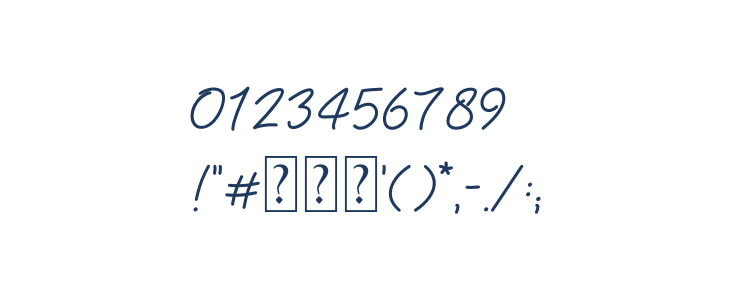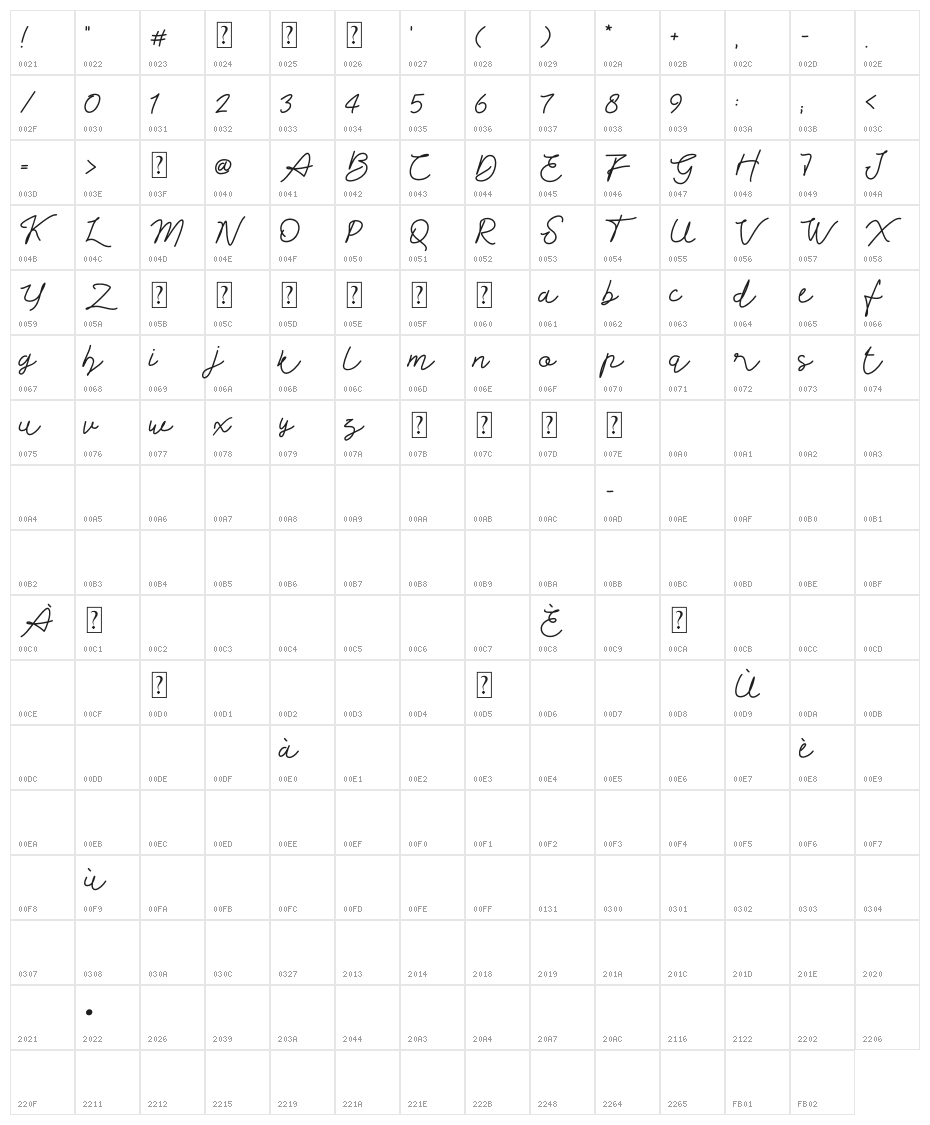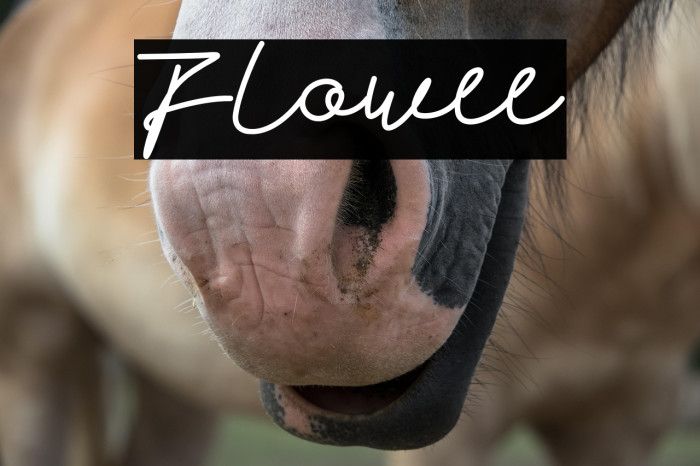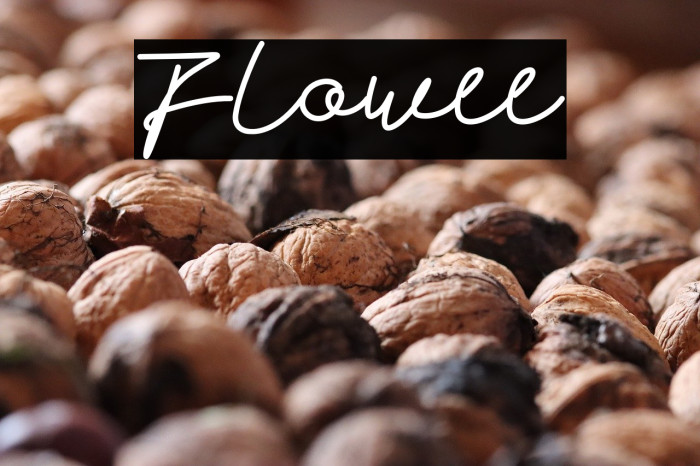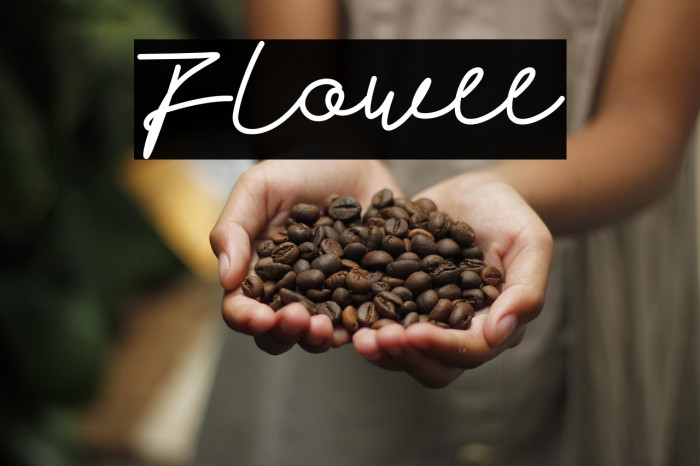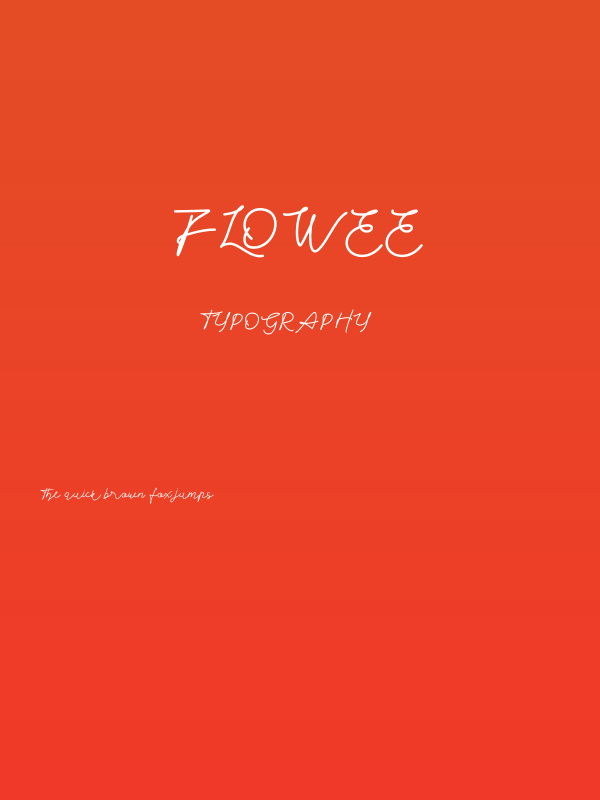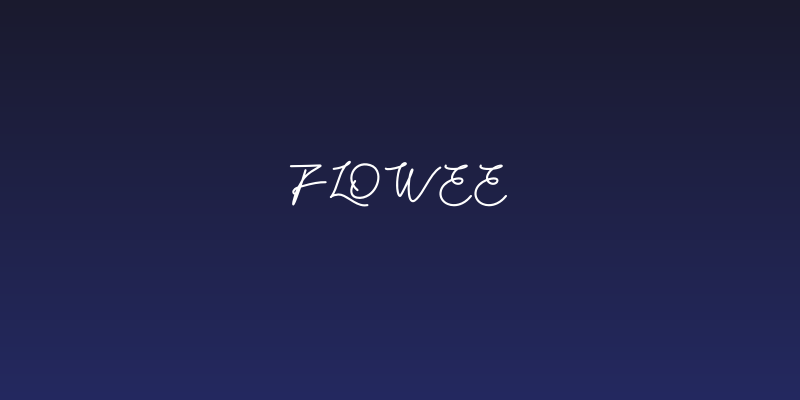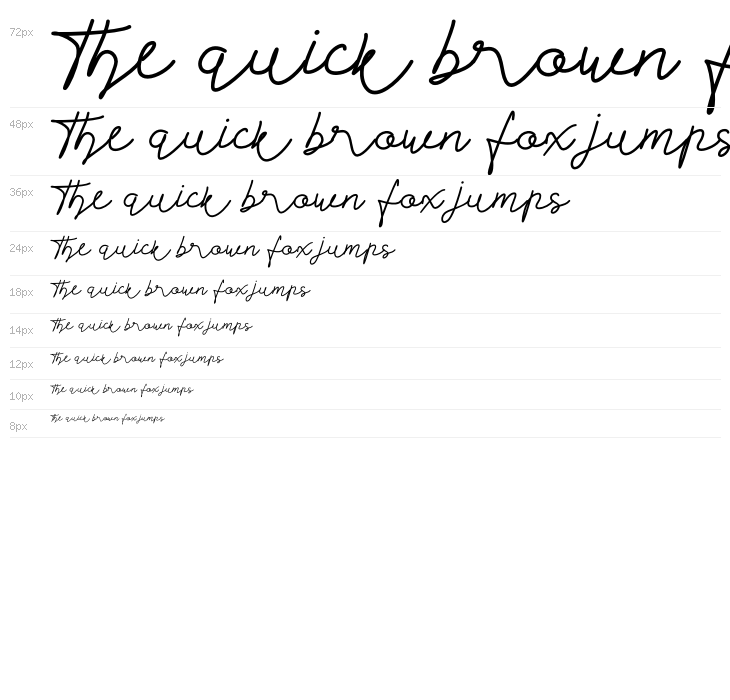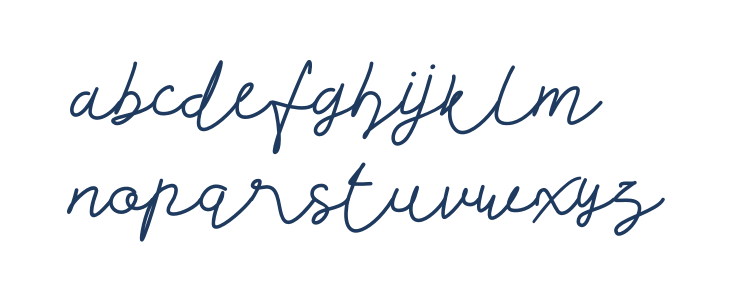
Flowee Font
Flowee Description
This font exudes a casual and flowing handwritten style, characterized by its smooth, cursive strokes that connect seamlessly. The uppercase letters are elegantly elongated, while the lowercase letters maintain a consistent rhythm, enhancing readability. Numbers are clear and distinct, matching the overall fluidity of the alphabet. Special characters are thoughtfully integrated, maintaining the font's cohesive appearance. The font's organic feel makes it suitable for projects that require a personal touch, such as invitations, greeting cards, or branding materials that aim to convey warmth and approachability.
| Overall Style | Casual, Elegant |
| Use Case | Headlines, Invitations, Personal Branding |
| Proposed Projects | Ideal for invitations, greeting cards, personal branding, and any project needing a warm, personal touch. |